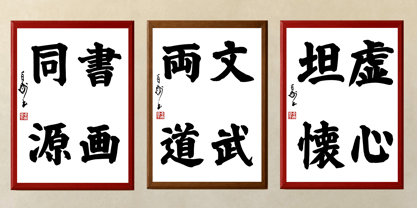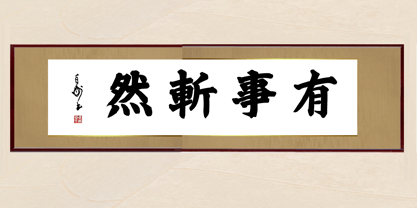
AH Hakushu Brush Extra-thick
by Nihon Shogi Kenkyusho Co., Ltd
The AH Hakushu Brush Extra-thick Font Family was designed by and published by Nihon Shogi Kenkyusho Co., Ltd. AH Hakushu Brush Extra-thick contains 3 styles and family package options. More about this family
This typeface, characterized by its bold and dynamic stroke structure, is highly effective for designing signage, posters, and thumbnails.
The alphanumeric characters, hiragana, and katakana included in each font of this typeface family are designed as proportional glyphs, each with its own unique character width.